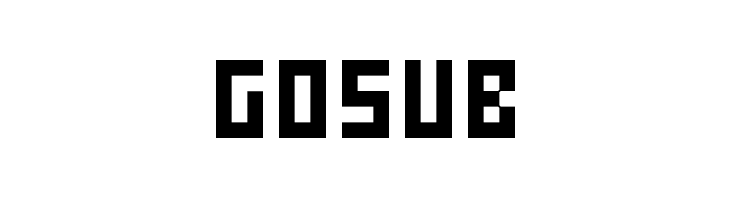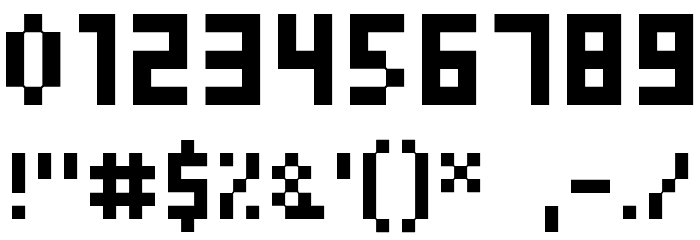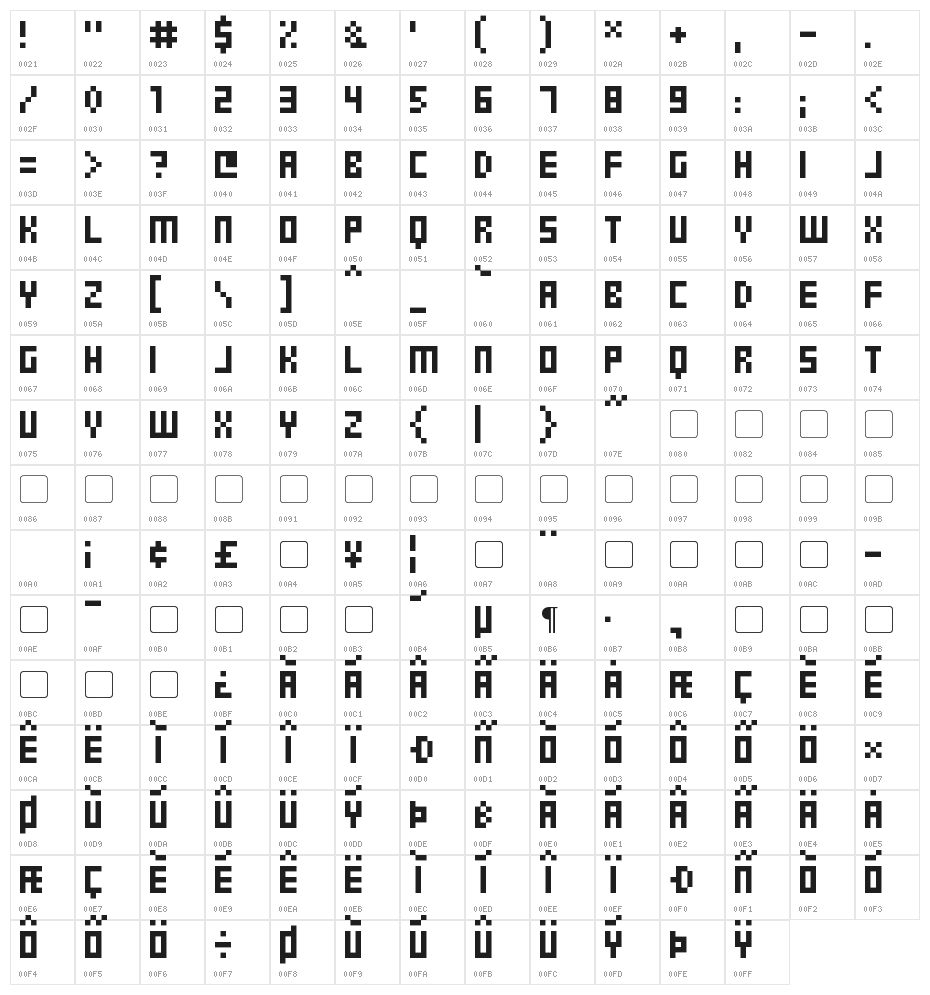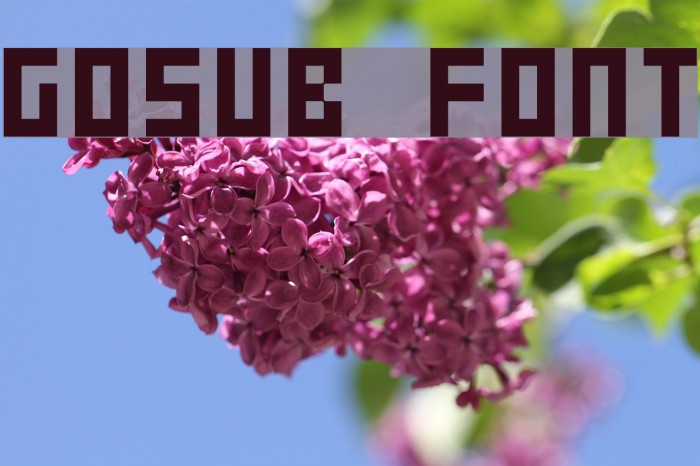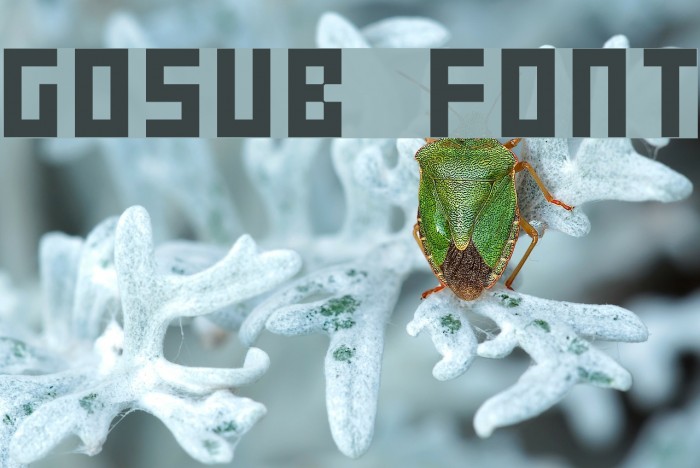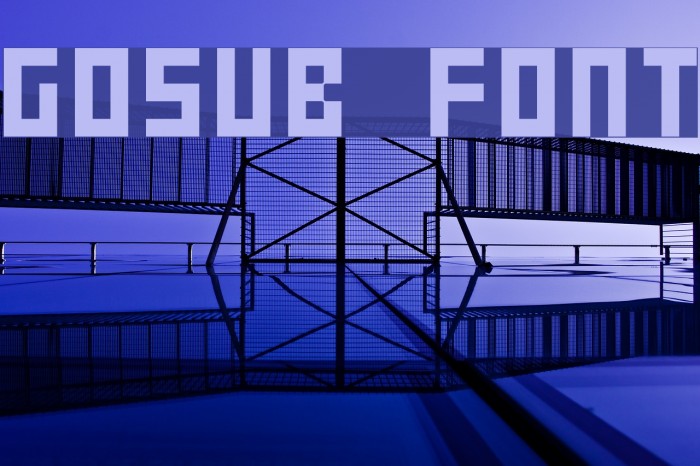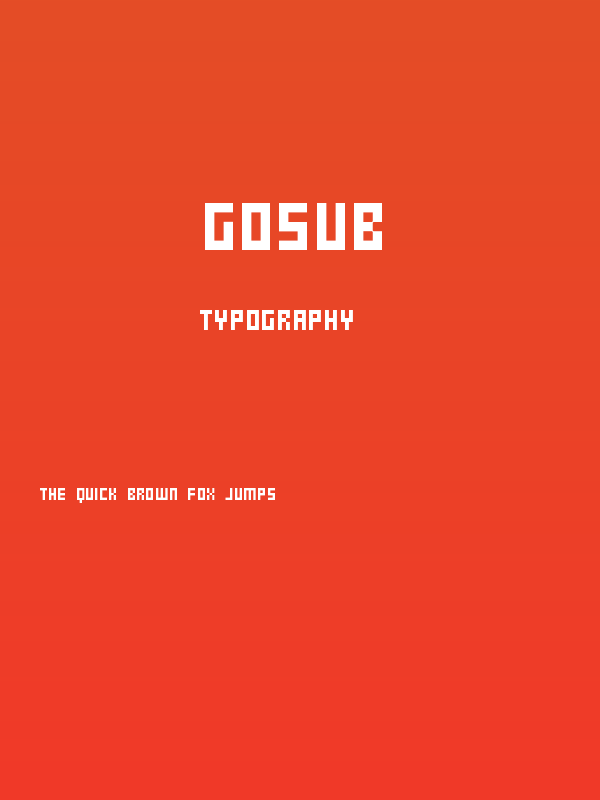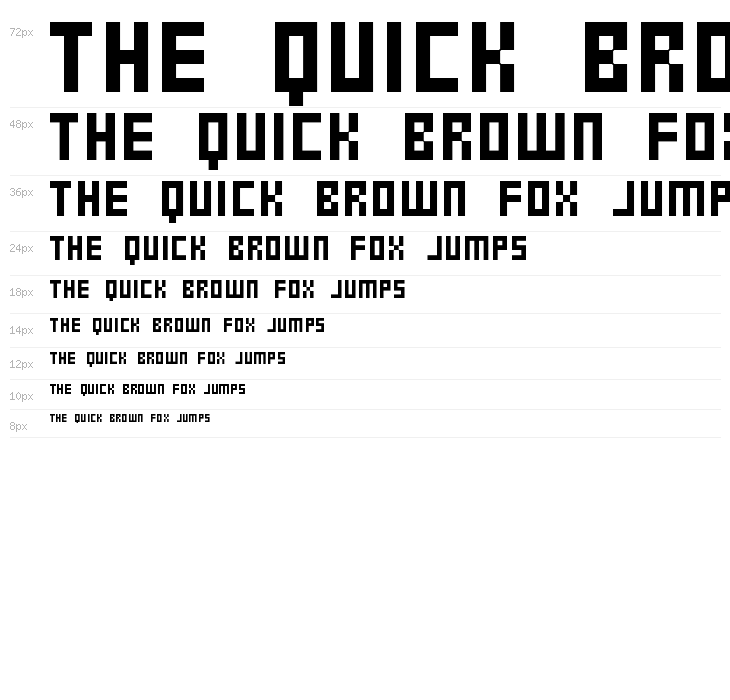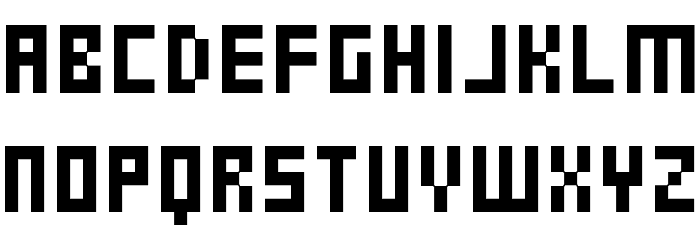
Gosub Font
Gosub Description
This font features a bold, geometric design with a distinctly pixelated appearance, reminiscent of early digital displays and video games. Each character is constructed with sharp, angular edges and uniform stroke widths, creating a cohesive and structured look. The uppercase and lowercase letters maintain a consistent height, contributing to a monospaced feel, although the font is not strictly monospaced. The numerals and special characters follow the same design principles, ensuring visual harmony across all glyphs. This font's retro aesthetic is both nostalgic and modern, making it suitable for projects that aim to evoke a sense of digital nostalgia or a tech-inspired theme.
Overall StyleRetro, Digital
Proposed ProjectsIdeal for video game graphics, tech-themed posters, digital art projects, and retro-inspired branding.